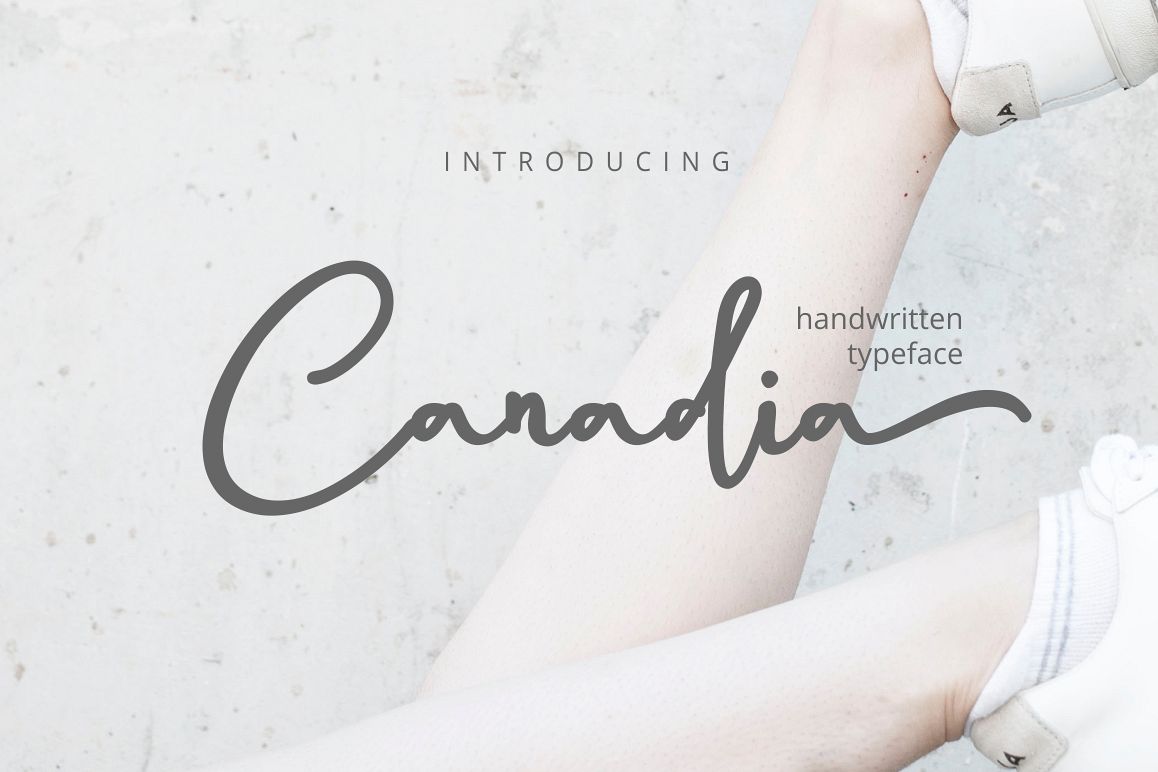
Canadia Script | Handwritten
Canadia Script is a rocky baseline font that will give your design a
fresh, modern, and will look beautiful on quotes, cards, and all your
other beautiful projects. Can be used for various purposes, such as
titles, signatures, logos, wedding invitations, t-shirts, letterheads,
signboards, labels, news, posters, badges etc.